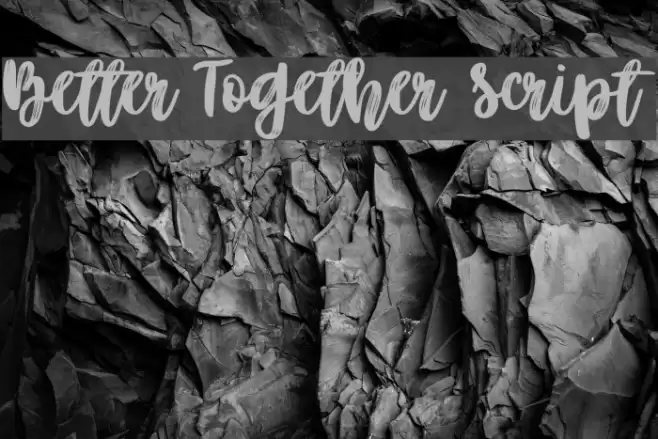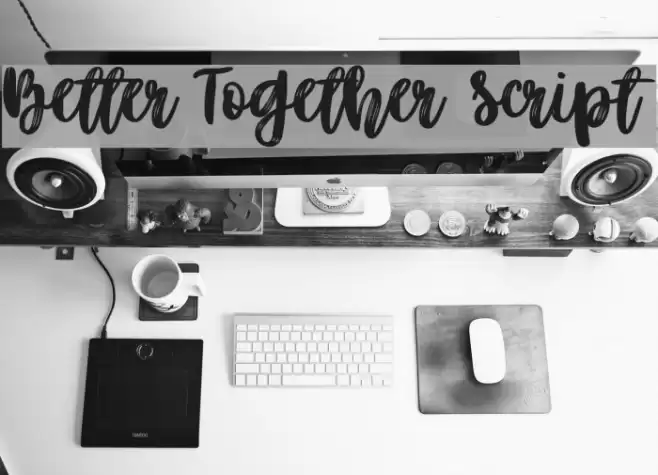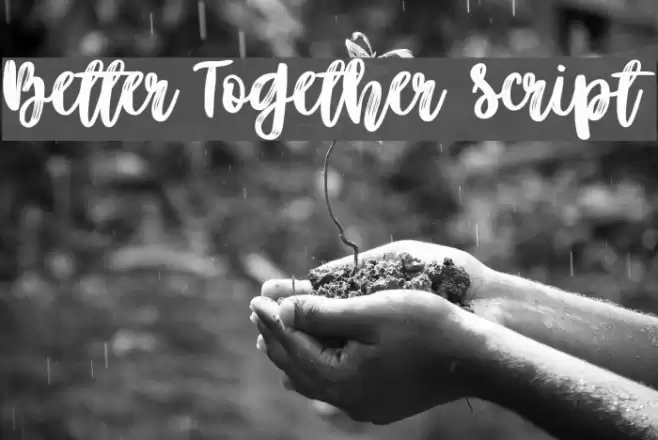
Better Together Script Font
Better Together Script Description
This font features a bold, expressive script style with a hand-drawn appearance. The letters are interconnected, creating a fluid and cohesive look. The strokes are thick and dynamic, with a high contrast between the thick and thin parts of each letter. This gives the font a lively and energetic feel. The uppercase and lowercase letters are well-balanced, maintaining readability while showcasing a playful and artistic flair. The font's brush-like texture adds a personal and informal touch, making it ideal for creative projects.
A bold, expressive script font with a hand-drawn, brush-like texture from Script fonts.
- Proposed Projects: Ideal for wedding invitations, greeting cards, branding, and social media graphics.
- Use Case: Logos, Headlines, Invitations